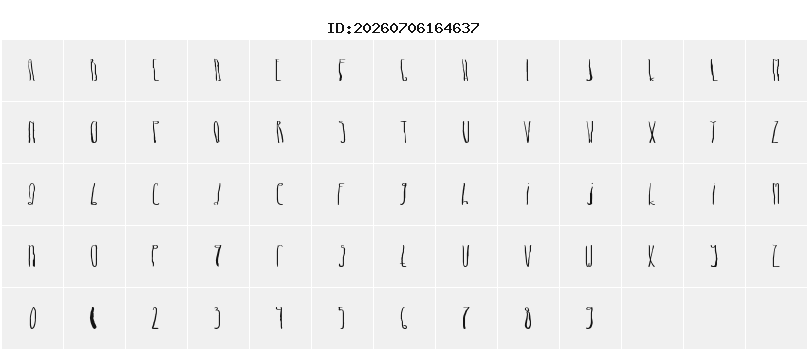
Dhe long zim Preview
• Font Name: Dhe long zim
• Font ID: Dhe long zim:Version 1.00
• Full Font Name: Dhe long zim
• Version: Version 1.00 December 12, 2010, initial release
• PostScript Name: Dhelongzim
About Dhe long zim.ttf
Dhe long zim.ttf is a modern, elegant sans-serif font designed for ultimate readability and visual harmony. Perfect for branding, headlines, web design, and print materials.